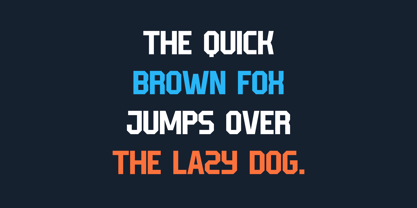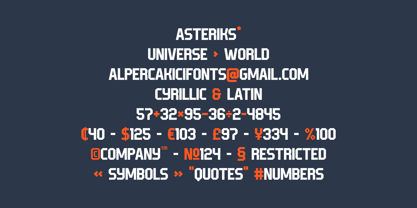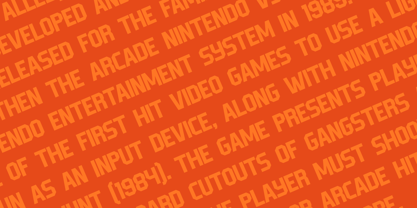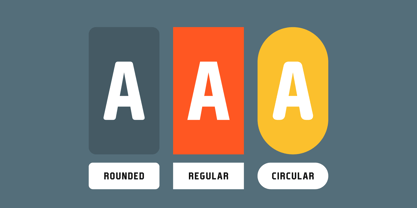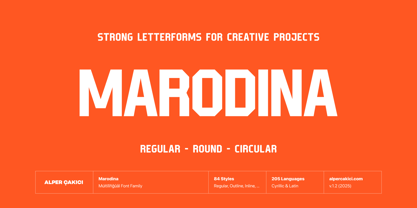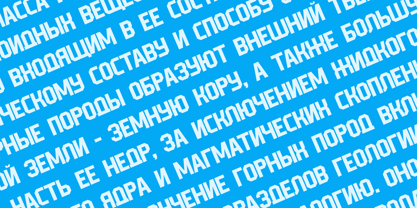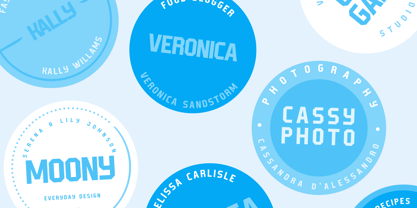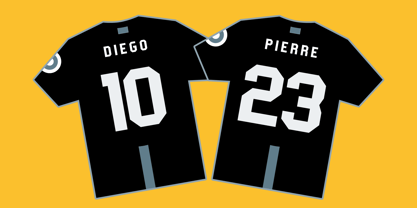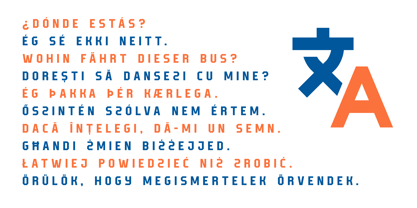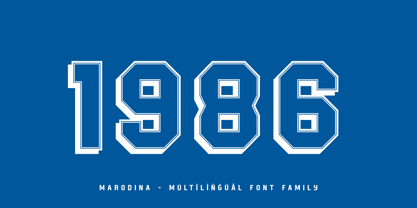
Marodina
Marodina is a bold old school collegiate display typeface family inspired by classic varsity lettering, championship jerseys, vintage athletic insignias, and traditional sports branding. Combining timeless college aesthetics with modern precision, Marodina delivers a powerful, confident, and highly recognizable voice for display typography.
Built around strong geometric construction and balanced proportions, Marodina captures the unmistakable character of American collegiate sports while remaining versatile enough for contemporary branding, apparel, packaging, editorial design, and digital media. Its extensive support for both Latin and Cyrillic scripts makes it suitable for multilingual projects across international markets.
The family contains 84 professionally crafted styles, offering an exceptionally broad range of creative possibilities. Three complementary design directions—Regular, Rounded, and Circular—allow designers to choose between sharp athletic forms, softer contemporary interpretations, or perfectly rounded varsity-inspired lettering.
Each core design is accompanied by a rich collection of decorative and textured variants, including Outline, Inline Shadow, Rimmed, Rimmed Shadow, Traced, Traced Shadow, Dry, Rough, Worn, Hazy, Old, and matching Italic versions. These variations make it easy to build layered lettering, authentic vintage effects, dimensional logos, and eye-catching sports graphics without additional illustration work.
Marodina is designed for bold headlines and impactful visual communication. It performs beautifully in:
• Sports team branding
• College and university graphics
• Varsity apparel
• Championship merchandise
• Athletic logos
• Esports identities
• Gym and fitness branding
• Military-inspired graphics
• Competition posters
• Tournament promotions
• Stadium signage
• Event branding
• Packaging
• Editorial headlines
• Social media graphics
• YouTube thumbnails
• Gaming titles
• Retro-inspired branding
• Badge and emblem design
• Merchandise and promotional products
With 565 glyphs, extensive Latin and Cyrillic language support, and optimization for both screen and print, Marodina provides the flexibility needed for professional branding systems while preserving the authentic spirit of classic varsity typography.
Whether you're creating a championship logo, collegiate apparel collection, sports campaign, vintage badge, athletic poster, or bold display headline, Marodina delivers the strength, tradition, and visual impact that define timeless sports typography.